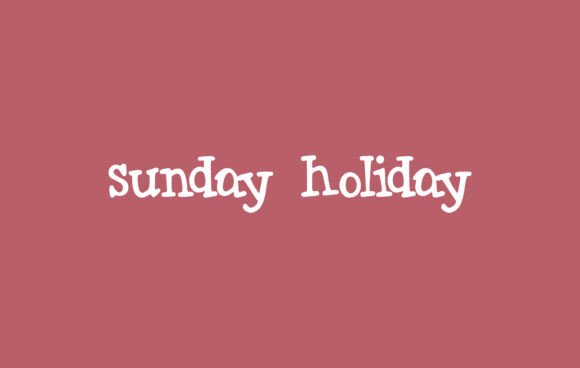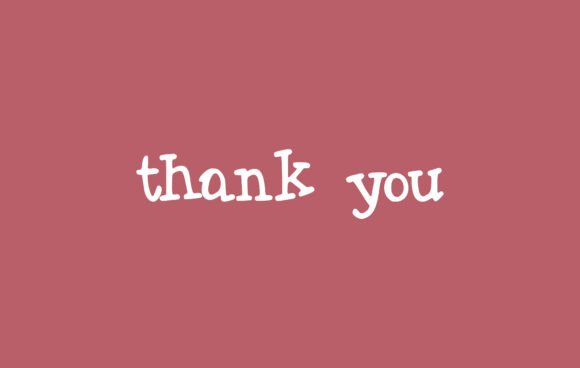
Introduction to Santino Font
Santino font is an authentic handwritten font with a romantic touch.
Key Features of Santino Font
Why Choose Santino Font?
Santino Font offers exceptional quality and versatility, making it a valuable addition to your design toolkit. Whether you’re creating for personal projects or commercial use, Santino Font delivers professional results.